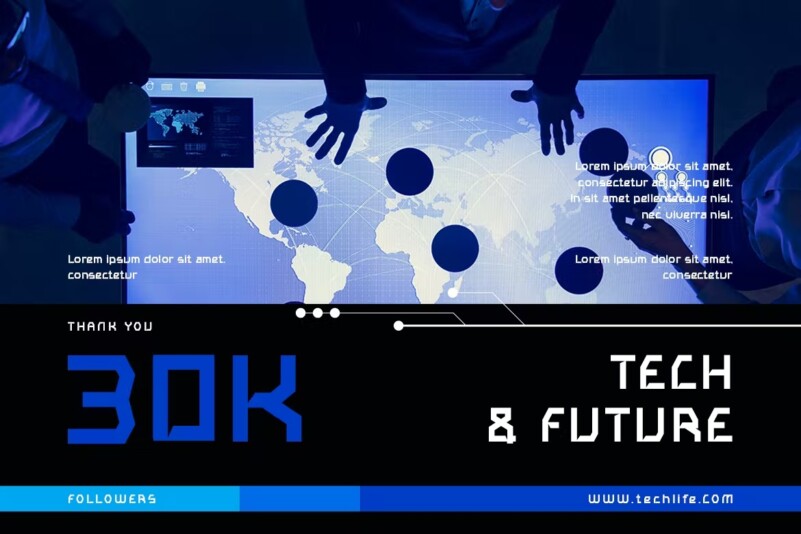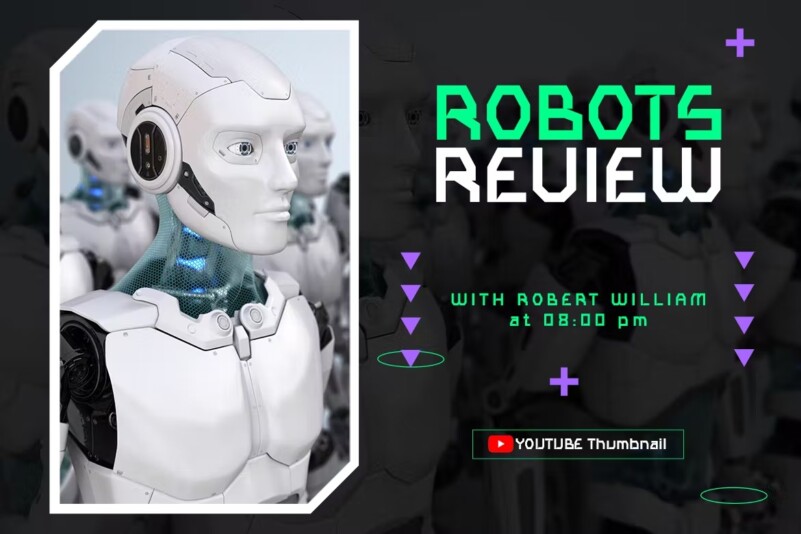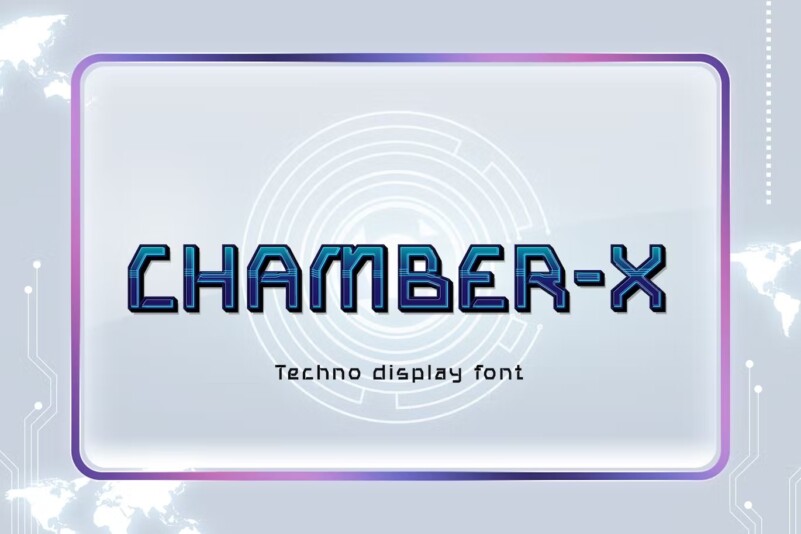
CHAMBER X – Techno Display Font
Robotics, sophisticated technology, outer space and everything related to future technologies. Room X will give you the advantage.
Perfect for magazines, posters, movie titles, music posters, youtube covers, youtube thumbnails, social media page covers, etc.